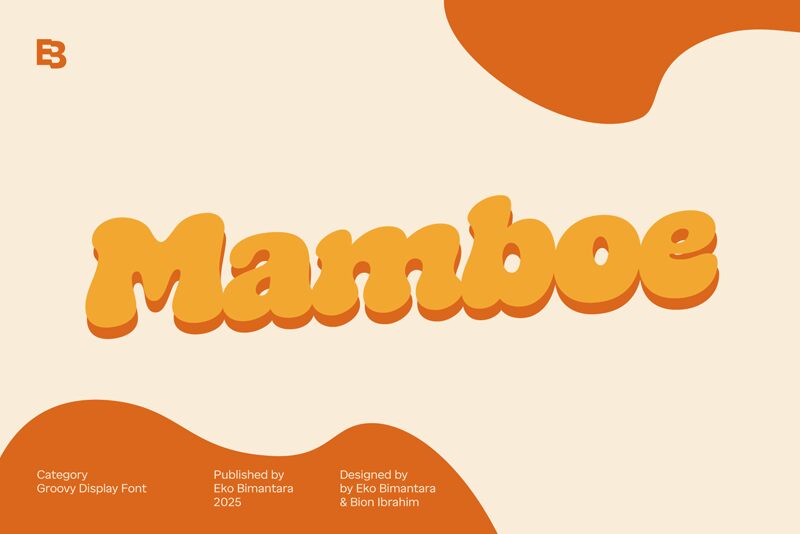
Mamboe font by Eko Bimantara is a free groovy typeface inspired by the great typography of the 70s. It is characterized by its soft edges, warm tone, and playful volume. The focus with Mamboe is on its characters, legible and dynamic. It is perfect to use as a standalone font or for mix & match with other stylish fonts.
Explore the retro beauty of Mamboe and implement it in your visual projects. These can include branding and packaging designs, advertisements, art posters and flyers, themed websites, online posts and banners, book covers, and more.